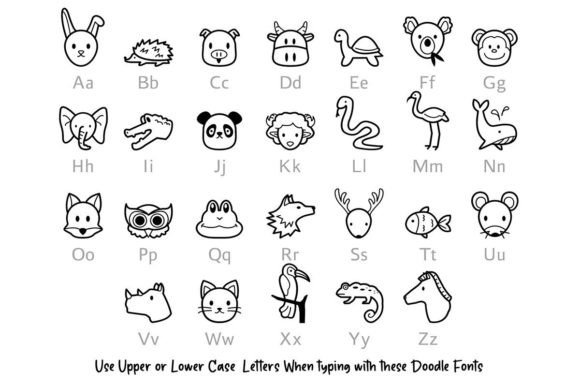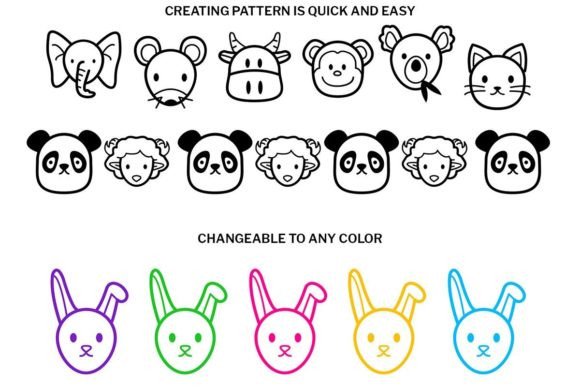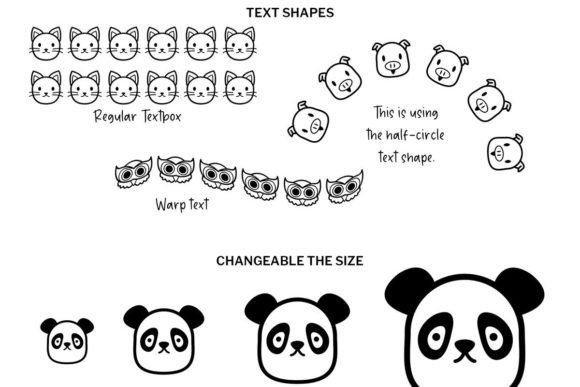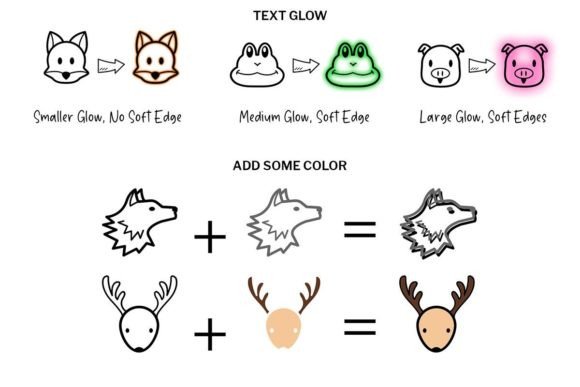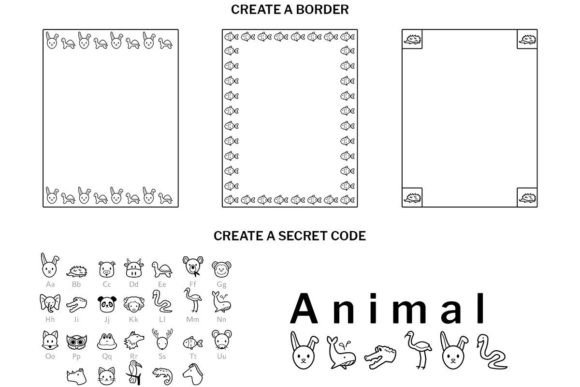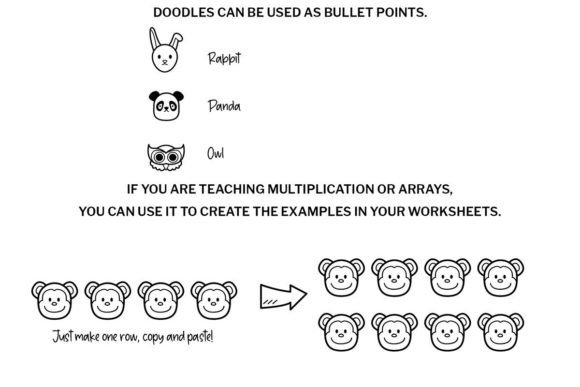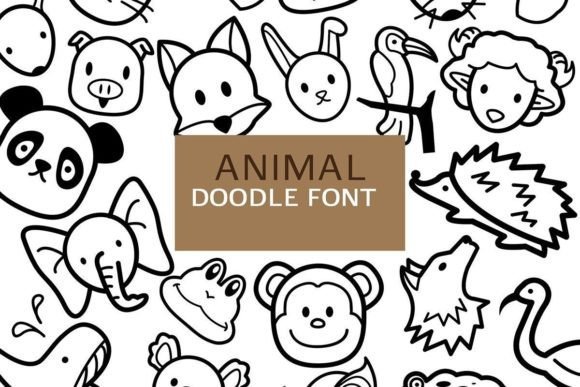
Unleashing Your Inner Creativity with the Animal Doodle Font
You’ve got a spark of inspiration, and it’s bursting to be brought to life – a colorful illustration, a playful design, or perhaps a heartfelt journal entry. Whatever your creative vision may be, the right font can make all the difference. Enter the Animal Doodle Font, a delightful dingbat font designed to add a touch of whimsy and personality to your projects.
Whether you’re a seasoned designer or a crafty enthusiast, the Animal Doodle Font is a versatile tool that can be used in a wide range of applications, from planners and activity books to social media graphics and marketing materials. Its cute and playful style makes it an invaluable asset for designers looking to add a unique touch to their work.
Animal Doodle Font Key Features
- Unique Hand-Drawn Style: The font features a playful, hand-drawn design with intricate details and textures, giving it a one-of-a-kind look.
- Character Set: The font includes a comprehensive set of characters, including uppercase and lowercase letters, numbers, and punctuation marks, as well as a range of special characters and symbols.
- Customizable: The font’s unique design makes it an ideal choice for designers who want to add a personal touch to their projects, with opportunities to customize and manipulate the font to suit their needs.
Designer Review: Animal Doodle Font
Overall, I think the Animal Doodle Font is a fun and quirky addition to any design project. It’s perfect for creating a playful and whimsical atmosphere in kids’ books, magazines, or even advertisements.
- The font’s custom doodles of animals add a unique touch to any text.
- The font’s playful nature makes it ideal for creating engaging headlines and titles.
- The font’s versatility allows it to be used in a variety of contexts, from children’s books to food labels.
- The font may be too childish for some designs, making it less suitable for more serious or professional projects.
- The font’s doodles may be distracting or overwhelming if used extensively in a single design.
- The font’s limited character set may make it less useful for longer texts or paragraphs.
Overall, I think the Animal Doodle Font is a great addition to any designer’s toolkit. While it may have some limitations, its unique charm and versatility make it a great choice for creating fun and engaging designs.